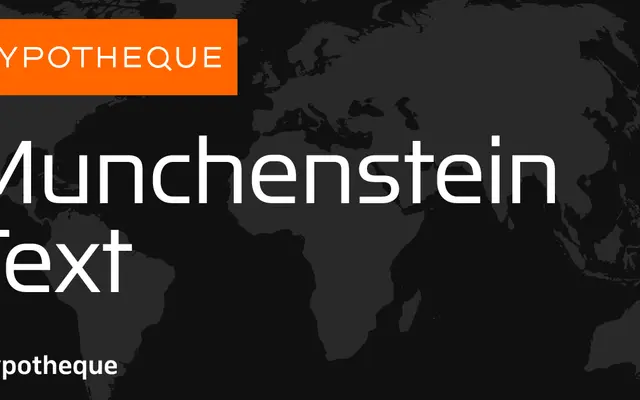
Munchenstein Text specimen from Typotheque
A grotesque sans from Typotheque with separate Text and Display optical sizes, a slab variant, and an unusual backslanted option throughout the Display range.
The family splits into three subfamilies: Munchenstein Text covers seven weights with slanted counterparts, Munchenstein Display extends into hairline weights and adds forward and backslanted styles, and Munchenstein Slab offers a single regular weight including a colour variant. A variable font is also available for the Text subfamily. The backslanted styles in the Display range are a distinctive departure from standard grotesque conventions.
Munchenstein Text is a grotesque sans with optical size differentiation between Text and Display variants, and an unusual backslanted option in the Display range, suggesting a neo-grotesque or Swiss-influenced grotesque lineage.